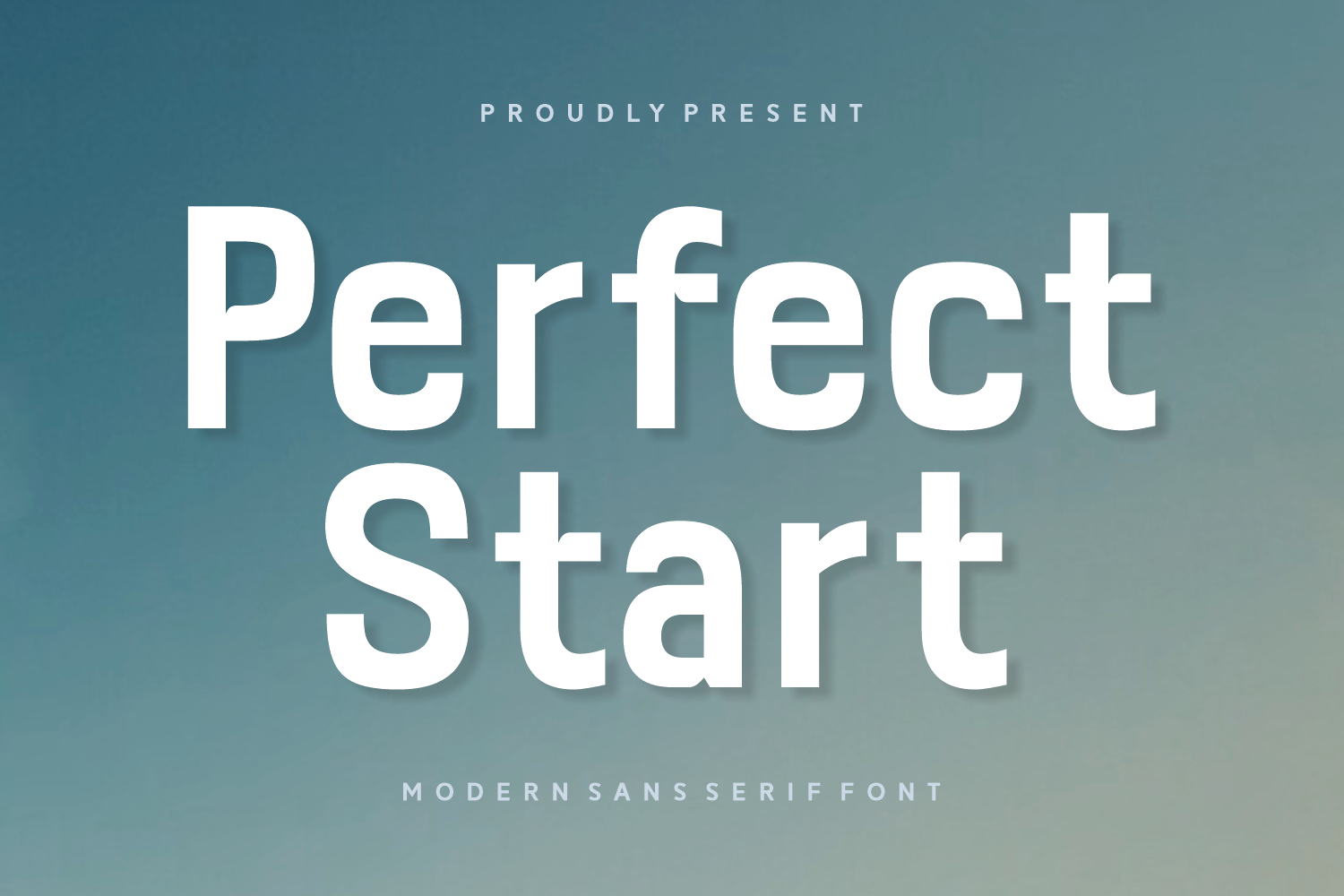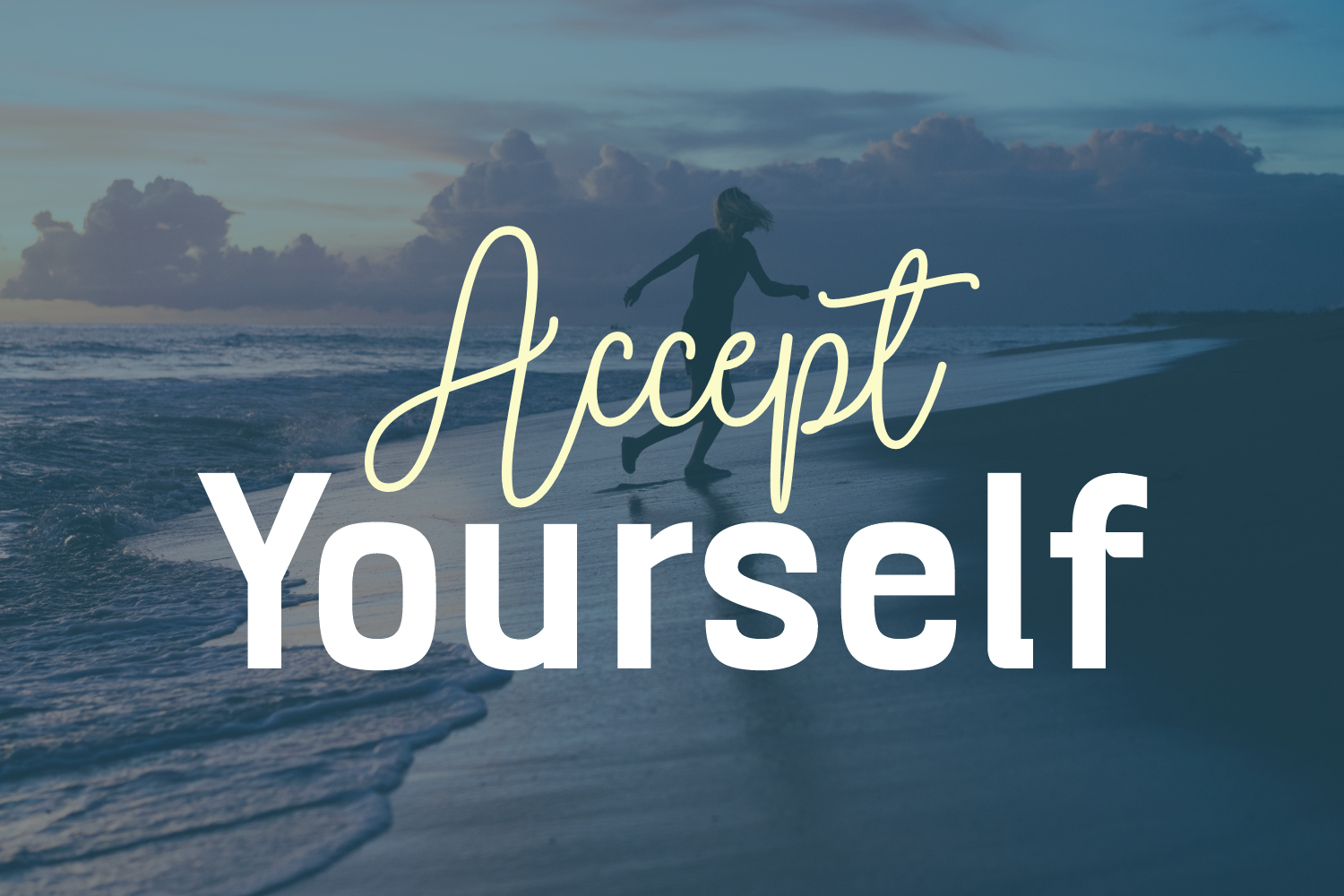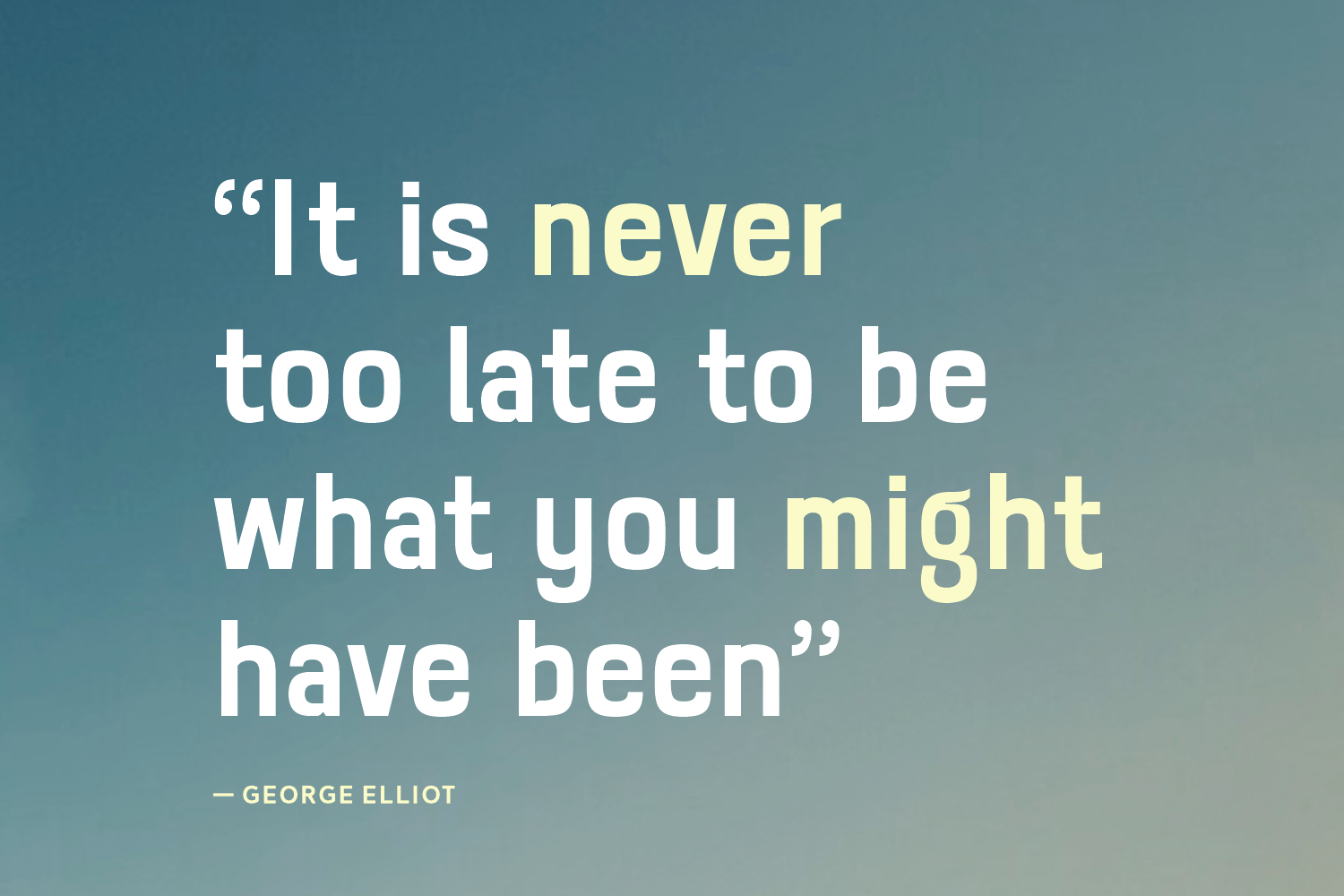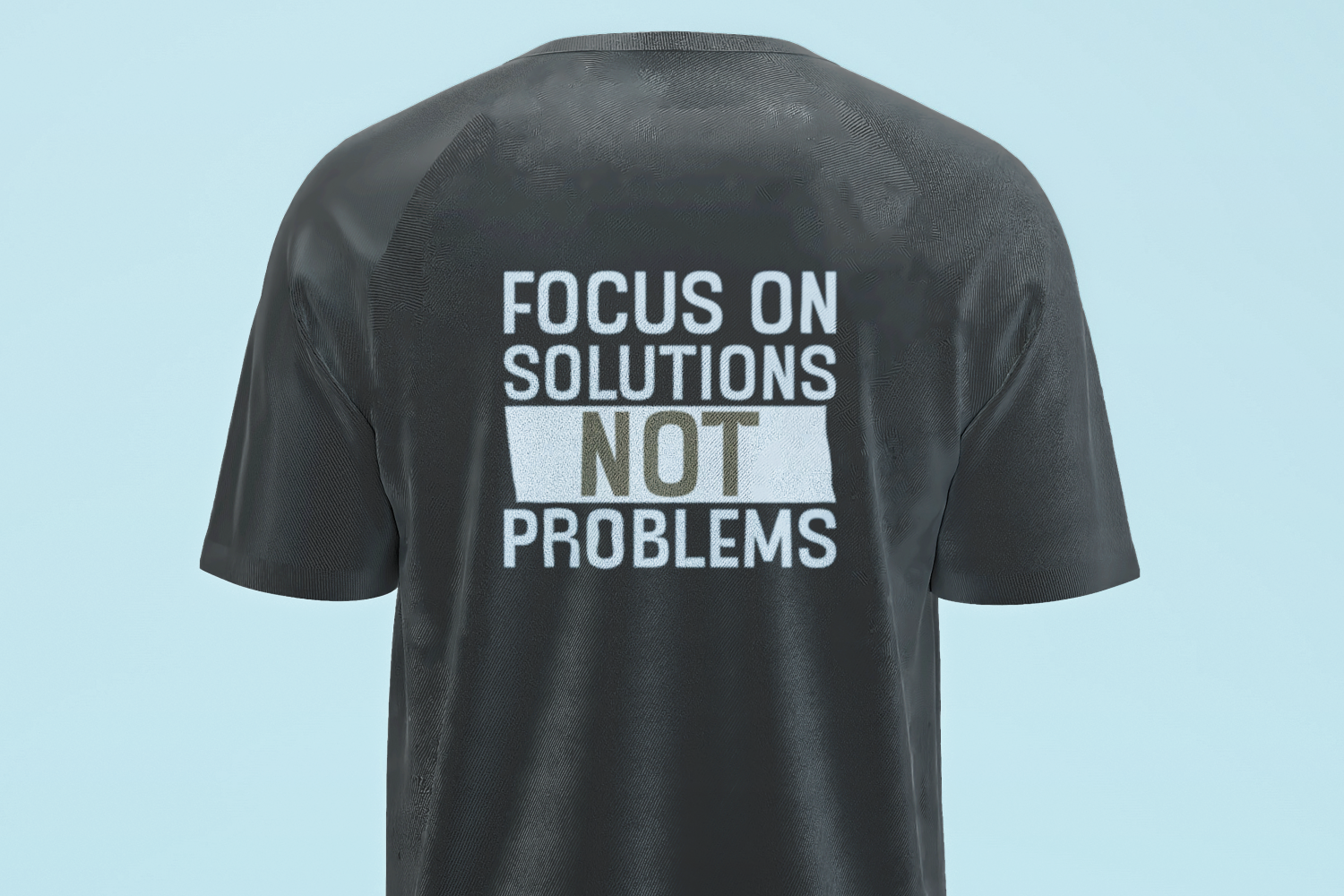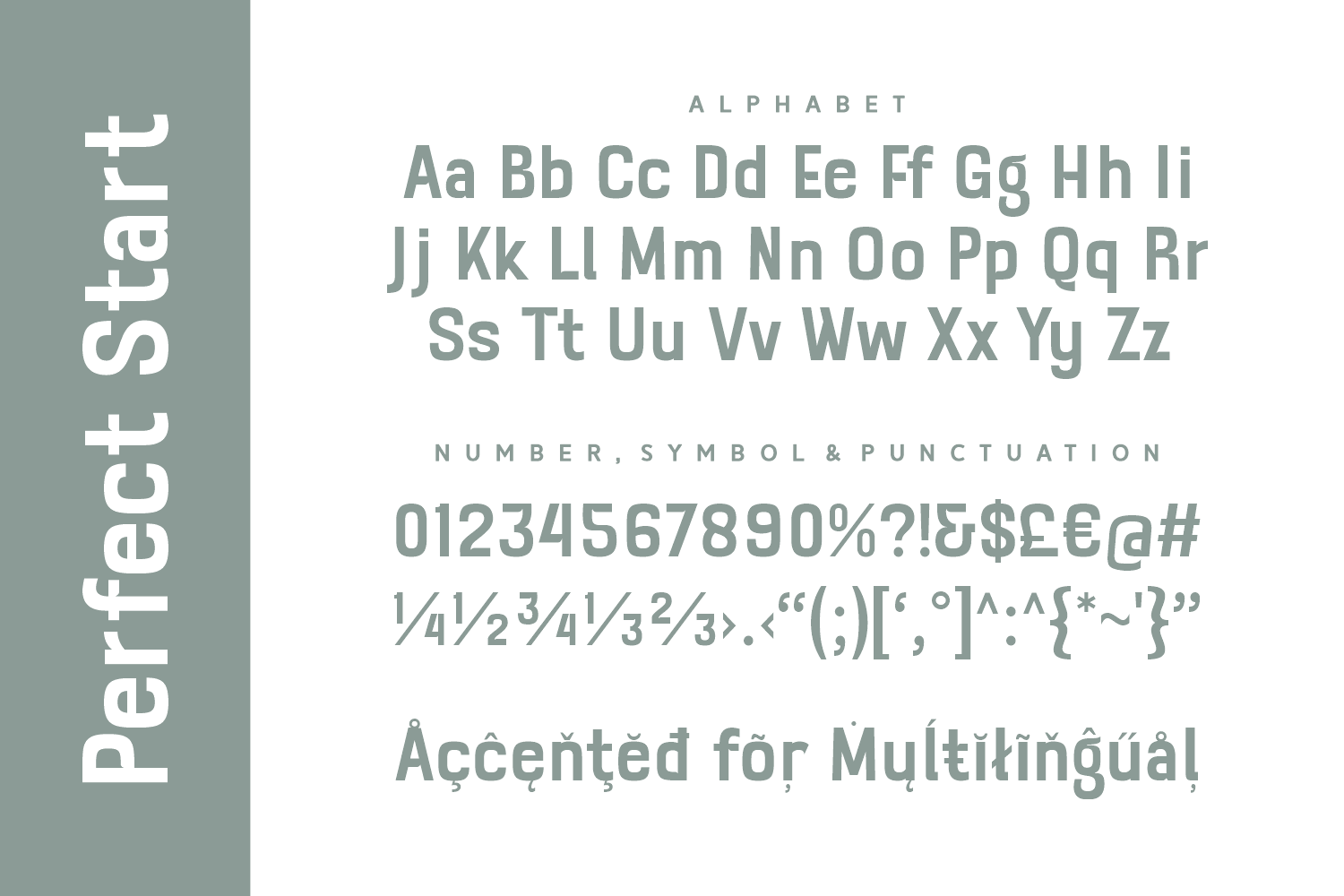
Perfect Start
Perfect Start is a clean, confident sans-serif typeface designed to make your message bold and memorable. It offers full uppercase and lowercase sets, numbers, punctuation, multilingual characters, and excellent legibility across formats.
This modern sans-serif is especially effective in dynamic compositions where simplicity, strength, and impact matter—whether for digital media or printed materials.